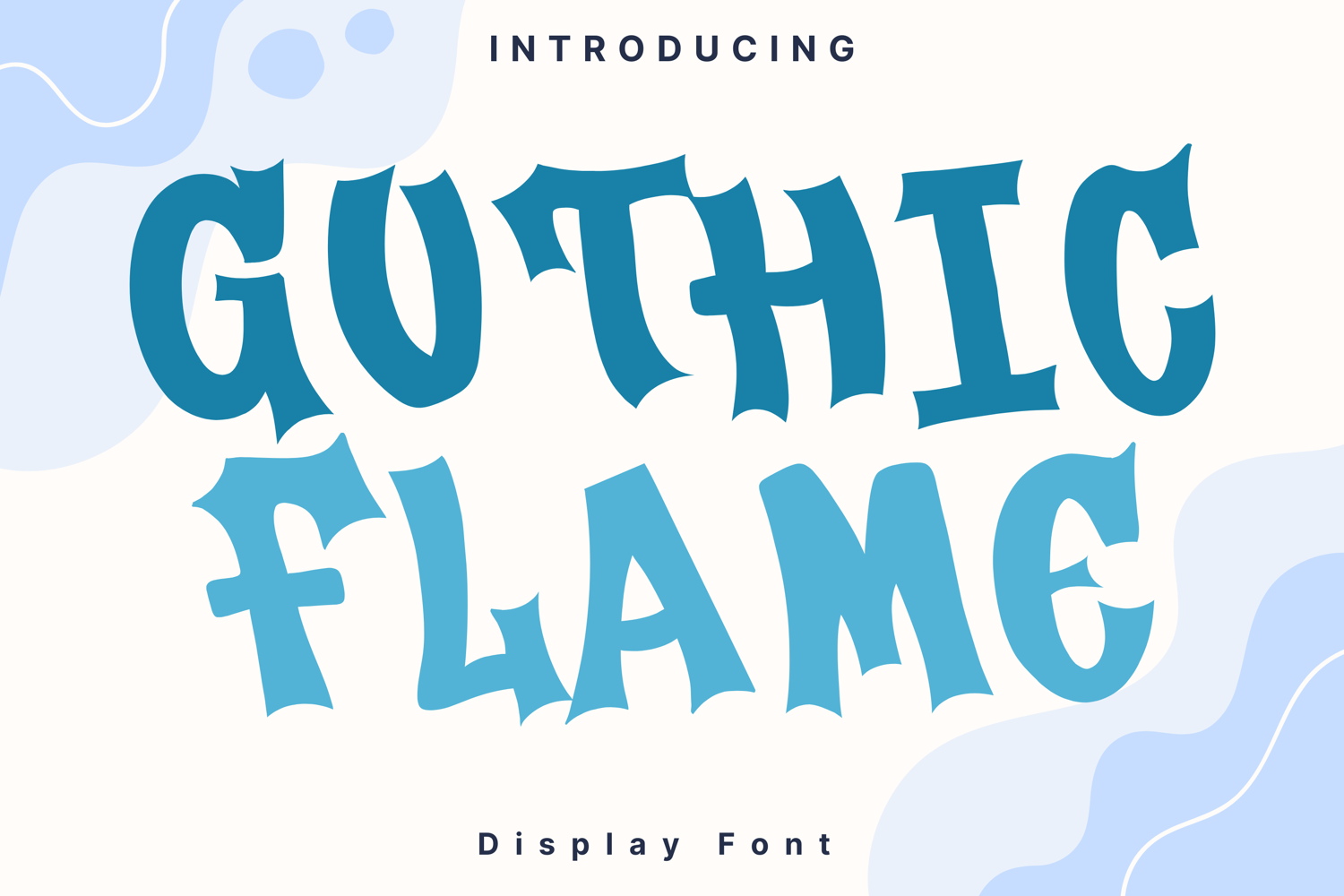
Gothic Flame Style
GothicFlame
Gothic Flame is a bold, dramatic display font with sharp, flaring edges inspired by medieval blackletter and fantasy aesthetics. Its strong strokes and angular shapes make it ideal for spooky titles, gothic posters, Halloween designs, or anything that needs a mysterious, dark vibe. Perfect for horror themes, haunted invitations, or fantasy-style branding.